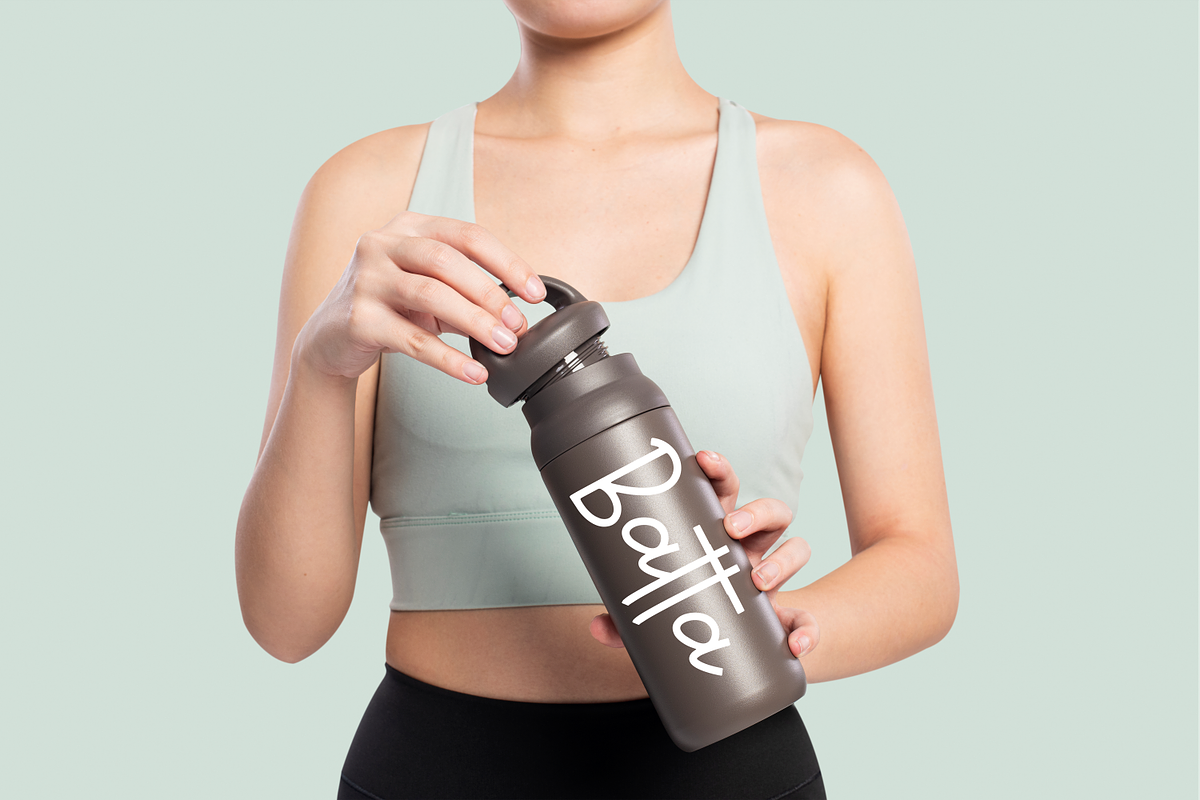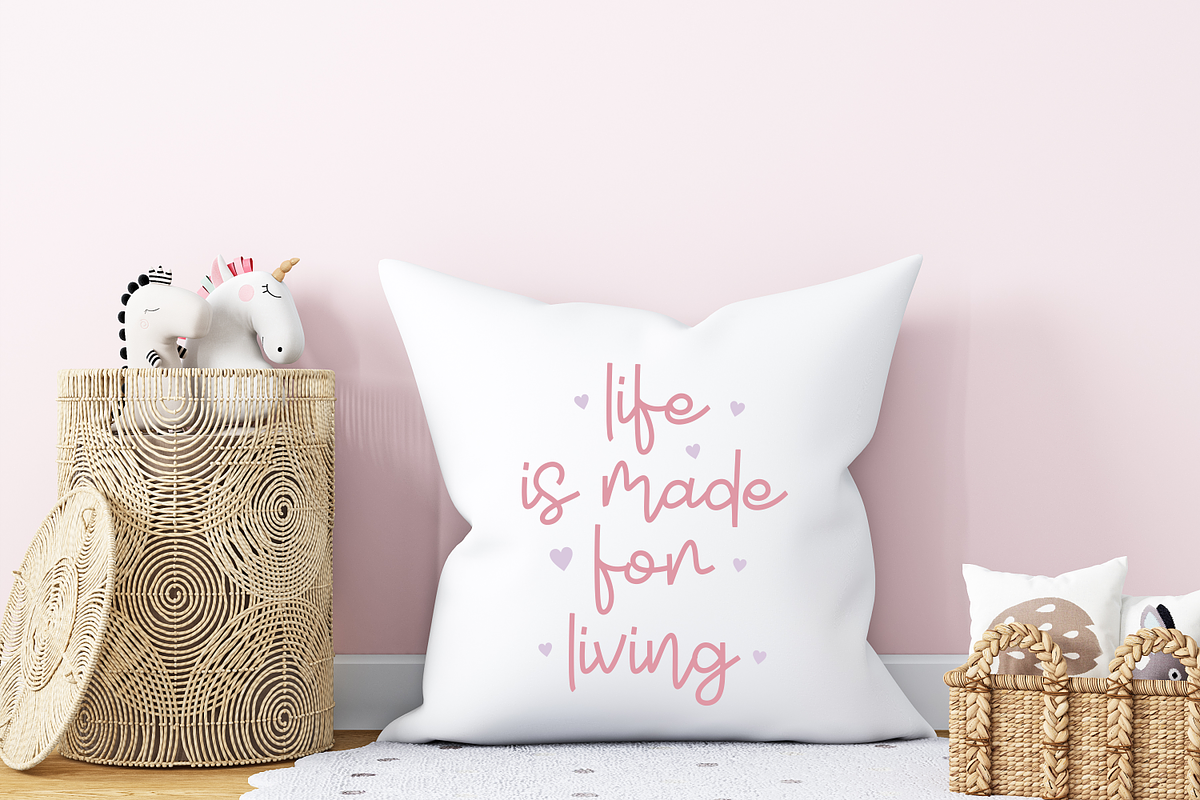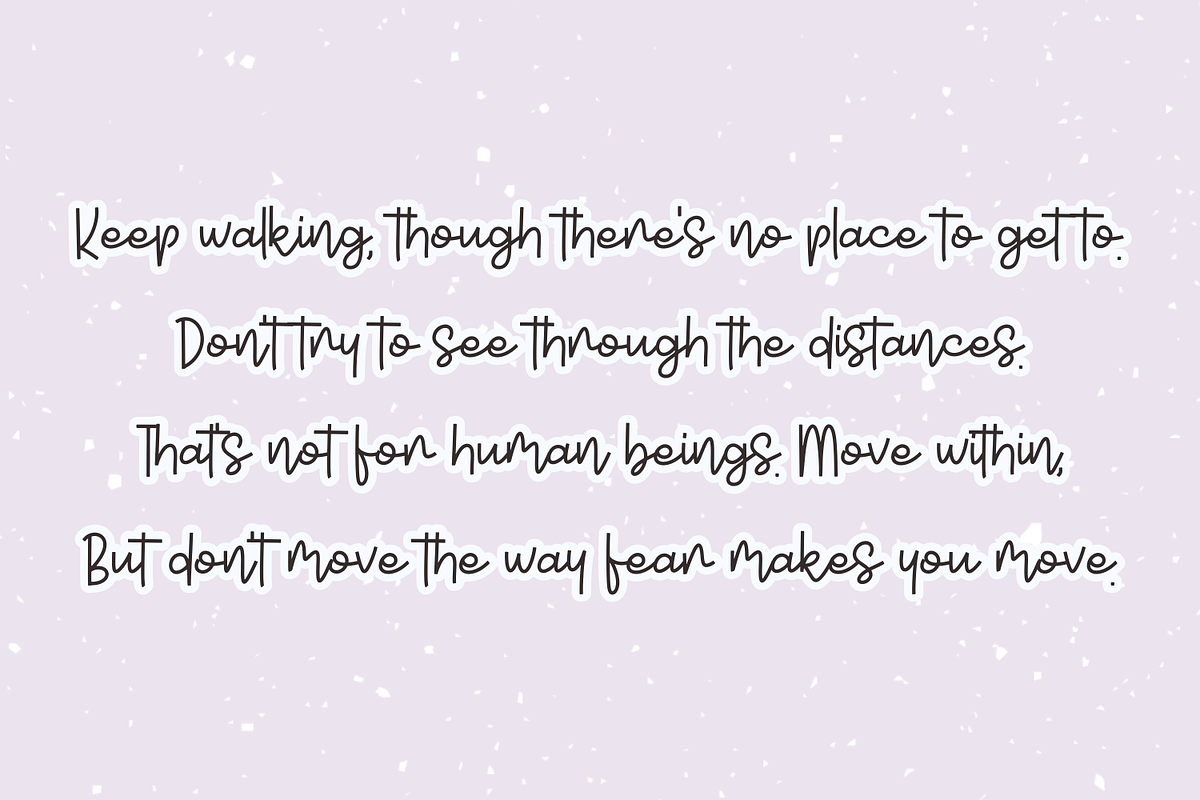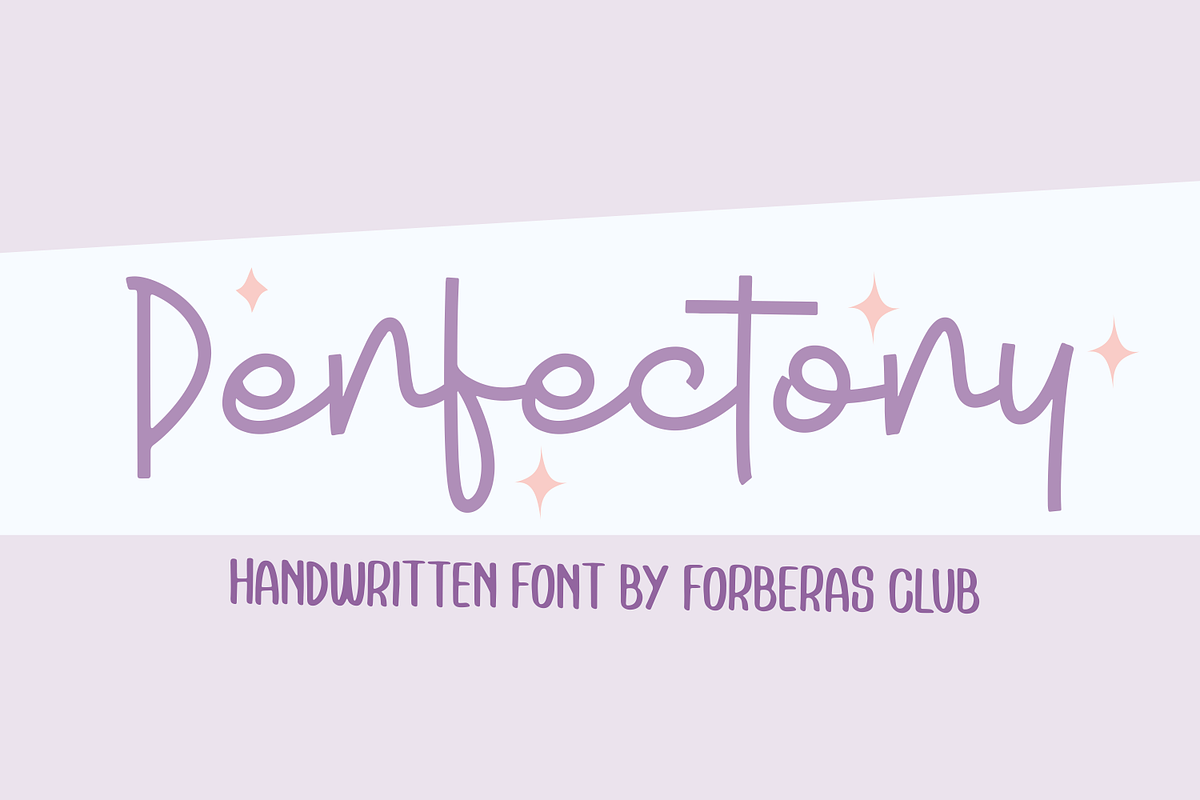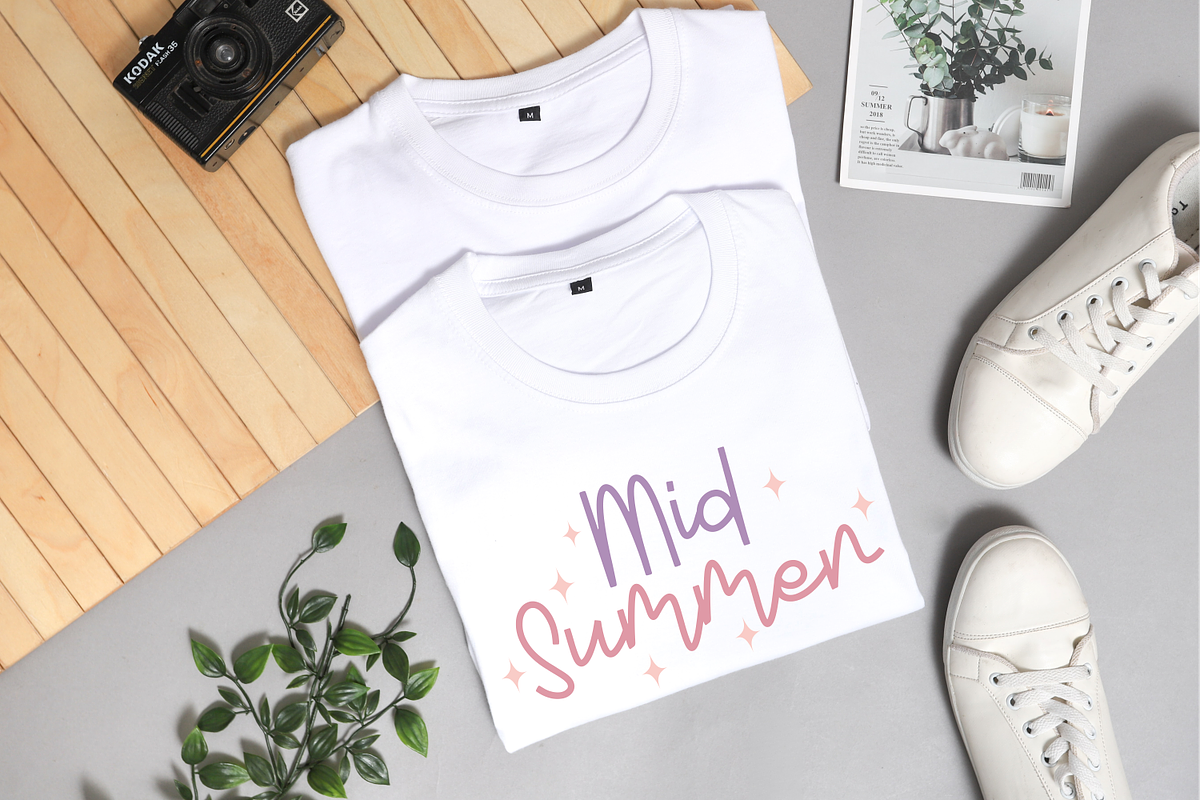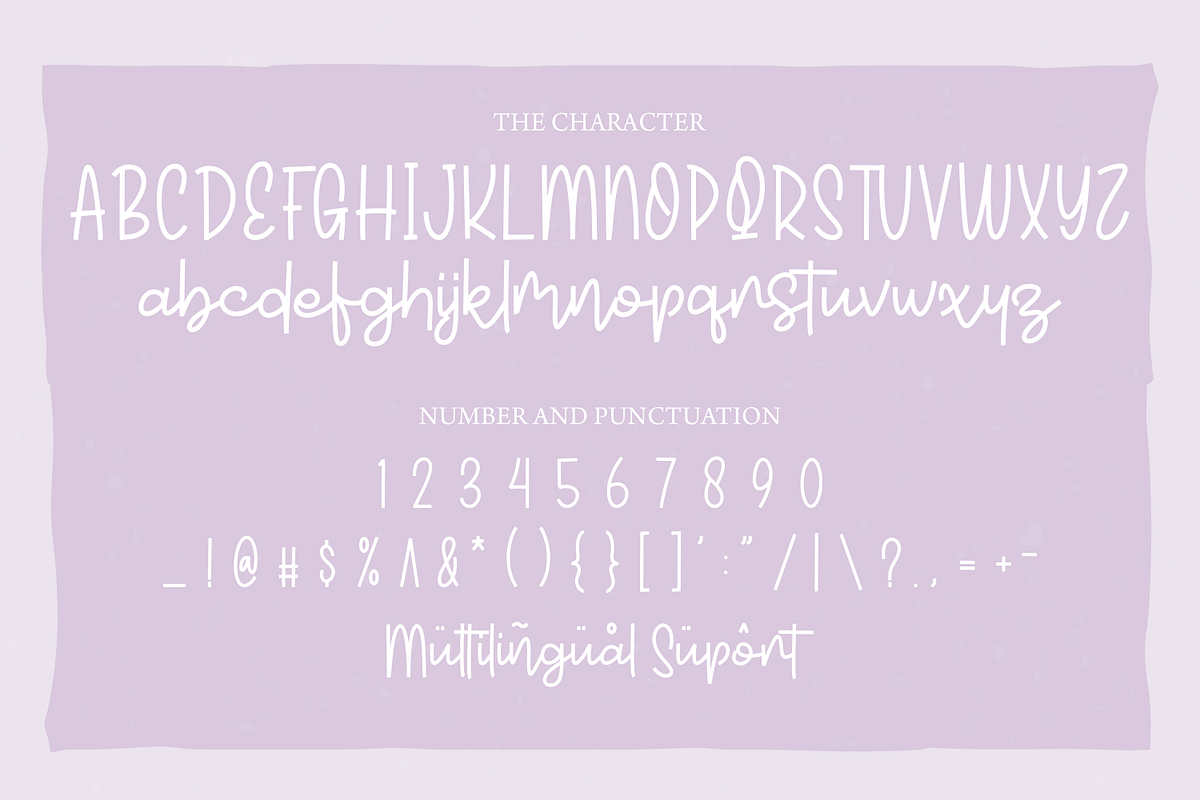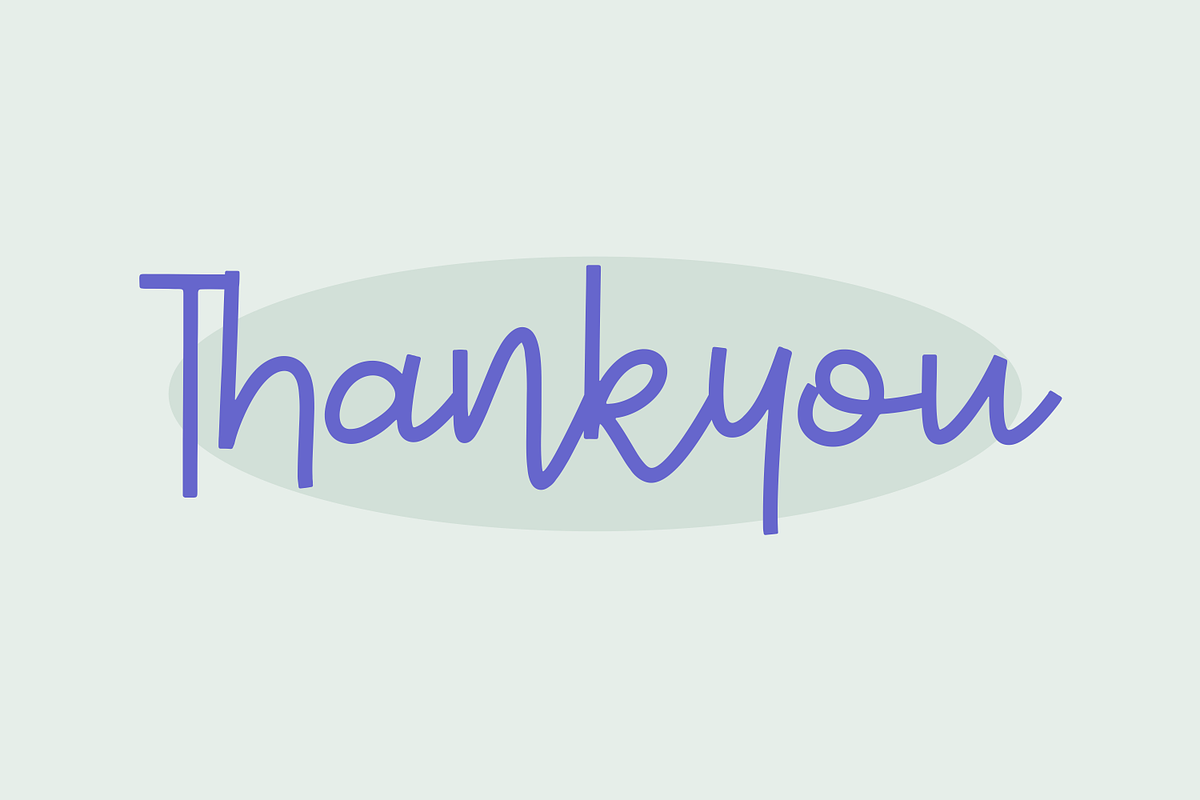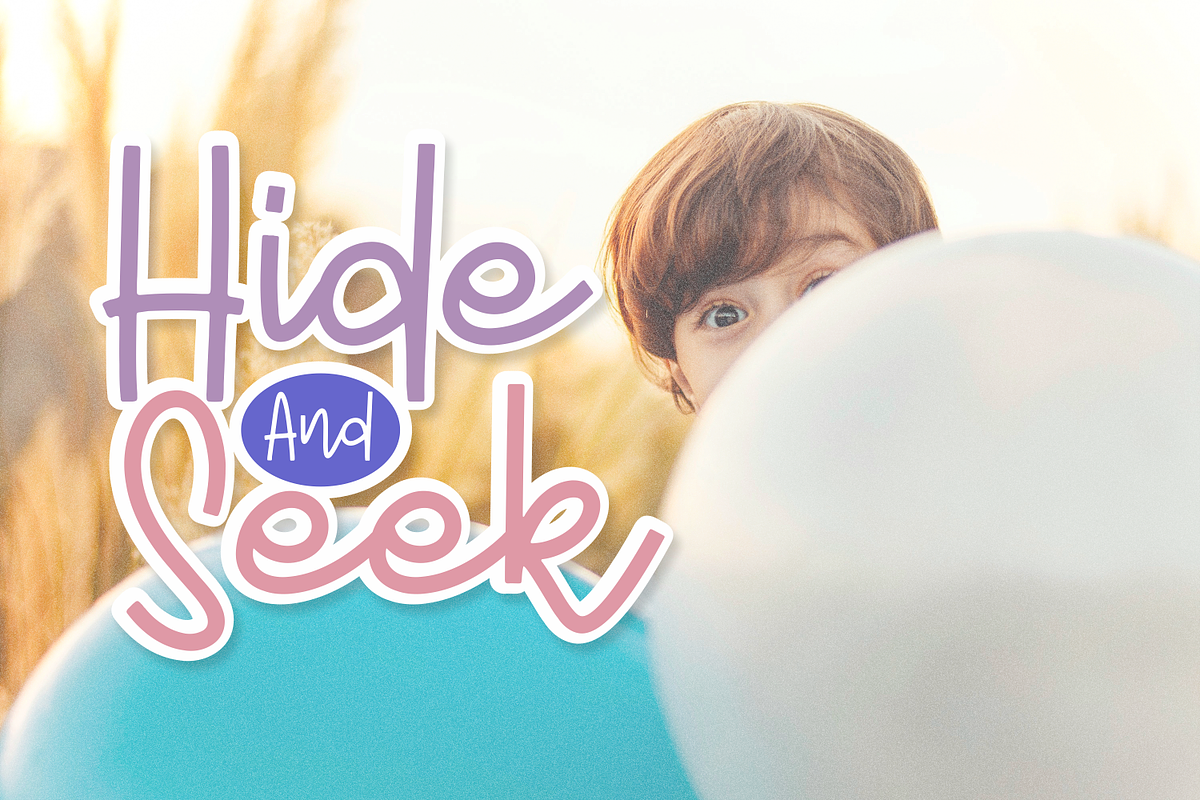
Perfectory
Introducing Perfectory by Forberas
Modern and beautiful handwritten script font! Great for wedding greeting cards, logos, branding materials, Invitation, business cards, quotes, posters, Cricut artwork and more!